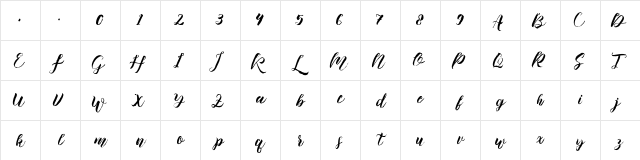
Anteiku Regular
Foundry: Hanif Syahputra
Designer: Hanif Syahputra
Design Context for Anteiku
Anteiku is a composed and adaptable typeface that performs quietly and consistently across a wide range of design contexts.